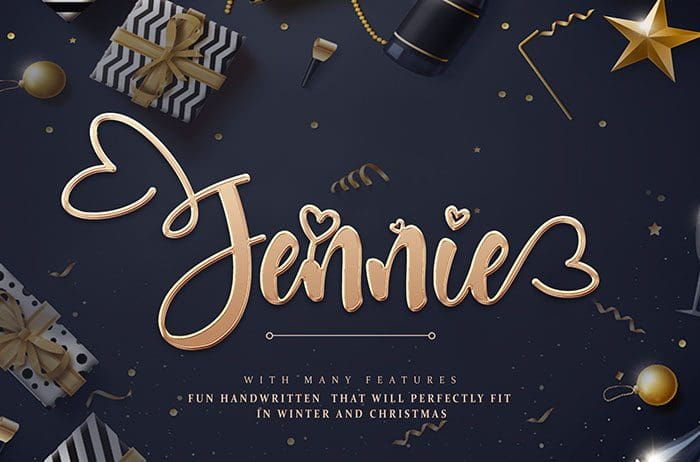
Free Jennie Script Font
Jennie Script Font
Free Jennie script font is a fun handwritten font with many features that will perfectly fit in winter and Christmas projects. It can be used for various purposes such as t-shirts, Christmas and holiday invitations, wedding invites and stationery, logos, etc. Created this font by Thomas Aradea. You can also search more freeĀ Fonts.